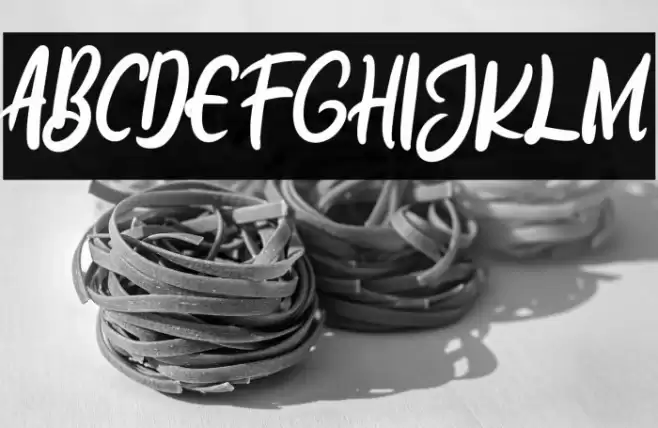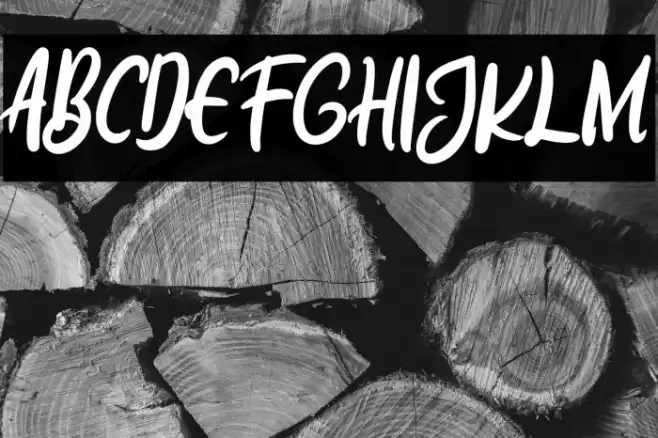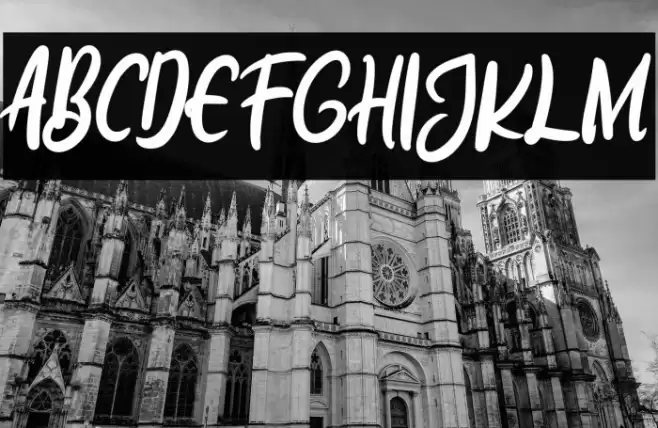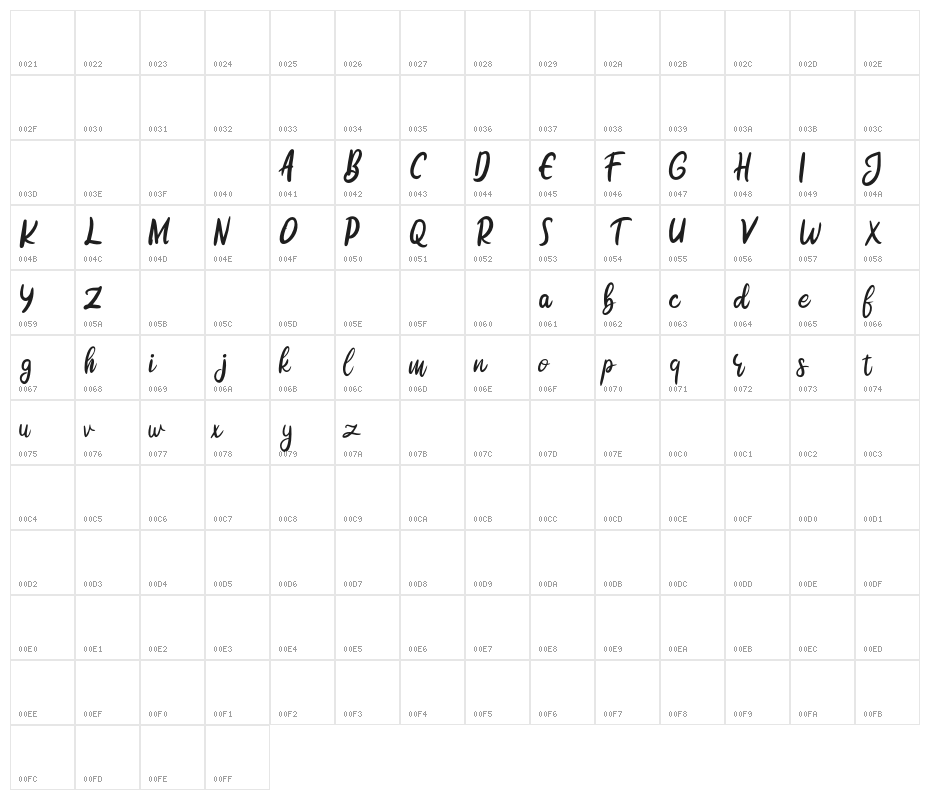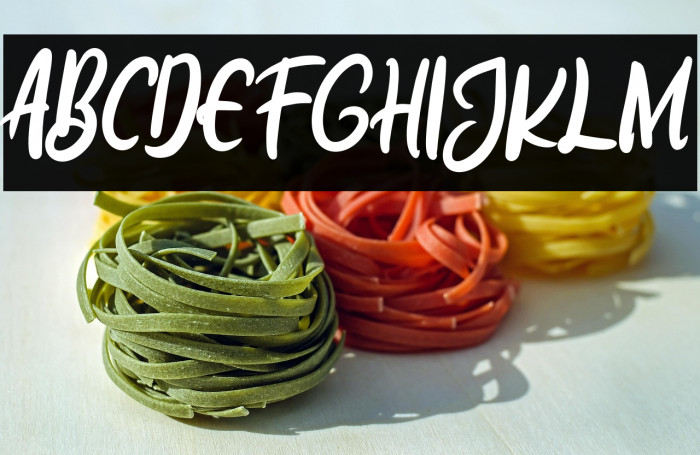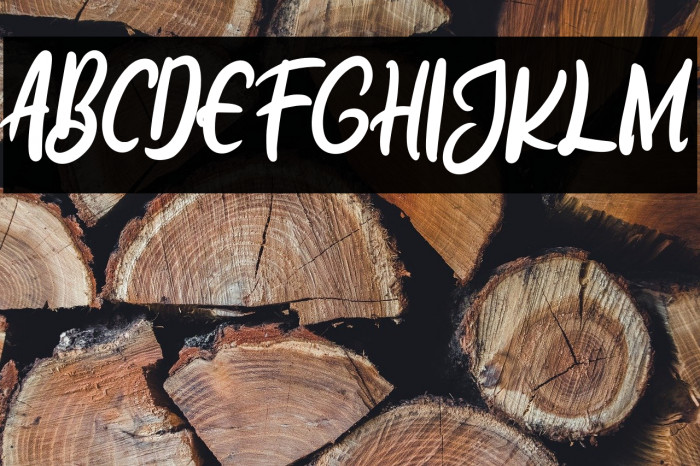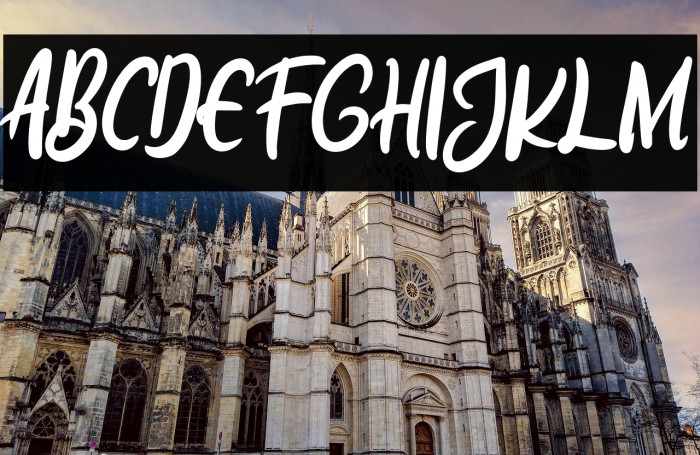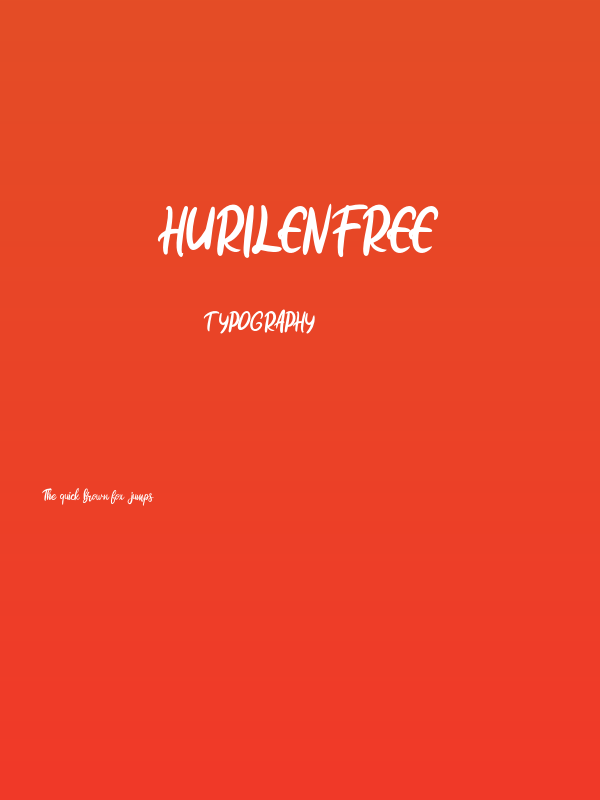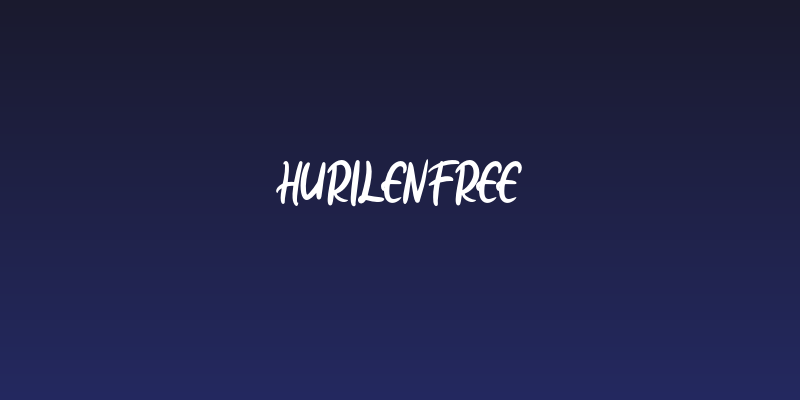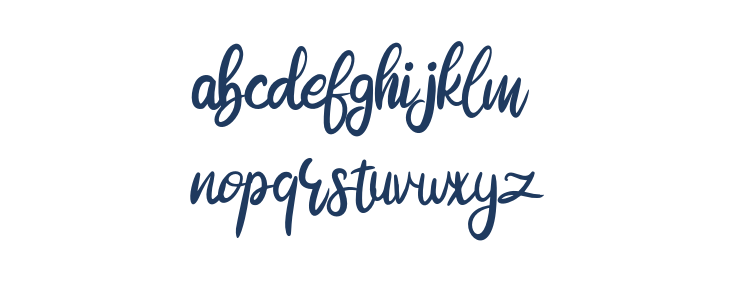
HurilenFREE Font
HurilenFREE Description
This font features a bold and expressive handwritten style, characterized by its fluid and dynamic strokes. The uppercase letters are bold and slightly slanted, giving a sense of movement and energy. The lowercase letters maintain a consistent flow, with some letters featuring unique loops and curves that add to the overall playful aesthetic. The font's design is both modern and casual, making it suitable for a variety of creative applications. The strokes are thick, providing a strong visual impact, while the spacing between characters is relatively tight, enhancing its cohesive appearance.
A bold, expressive handwritten font with fluid strokes and a playful aesthetic from Uncategorized fonts.
- Font: HurilenFREE
- Proposed Projects: Ideal for branding projects, social media graphics, invitations, and any design requiring a personal touch.
- Character Spacing: Tight
- Use Case: Logos, Headlines, Invitations